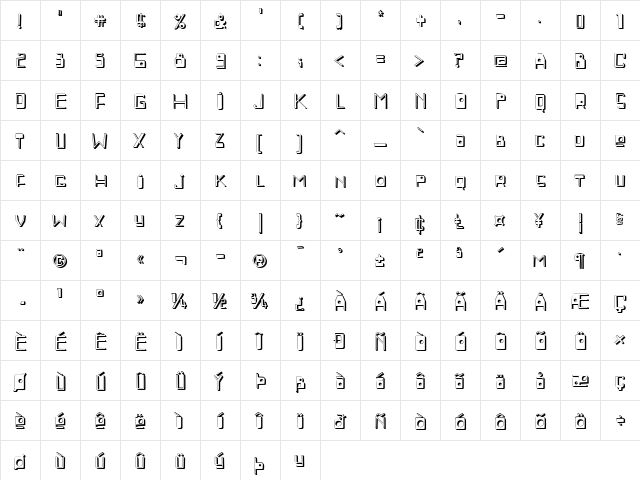
PF Beatnick Pro Shadow
Design Context for PF Beatnick Pro Typeface
PF Beatnick Pro brings ornamental detail and strong personality to headlines and identities, where visual impact matters more than quiet functionality.